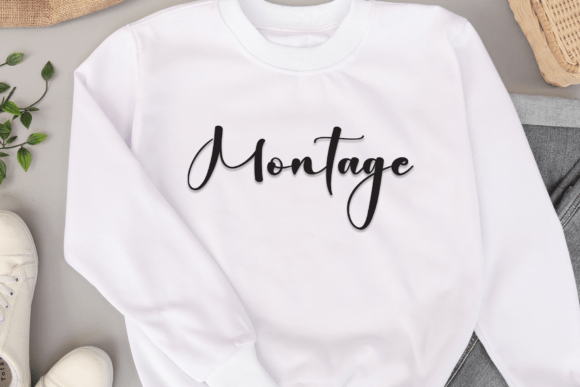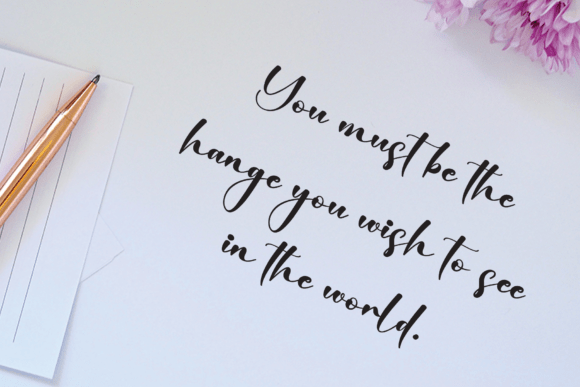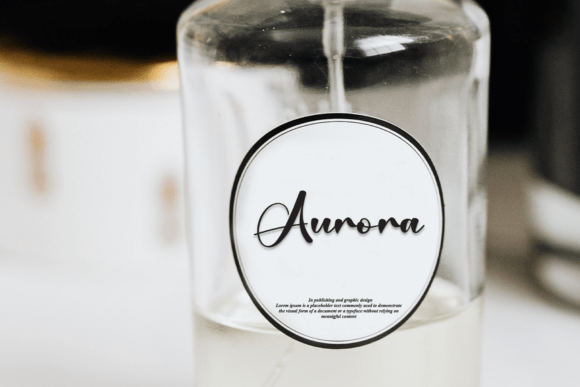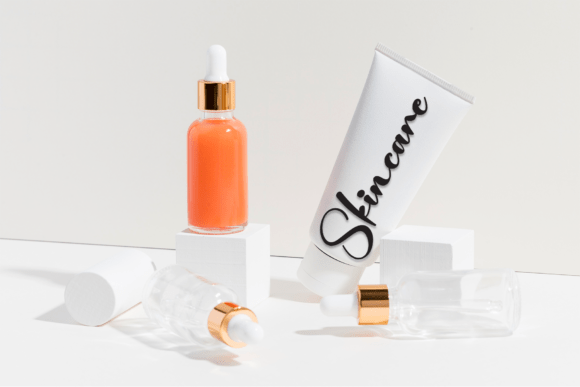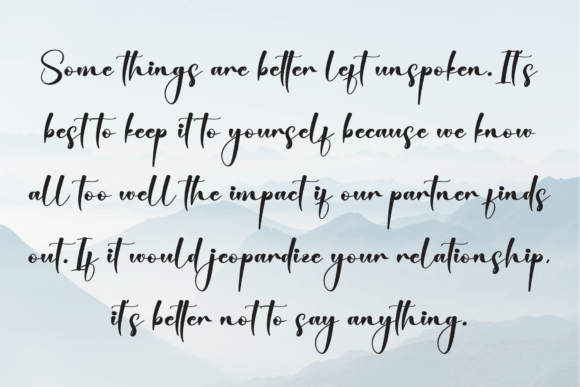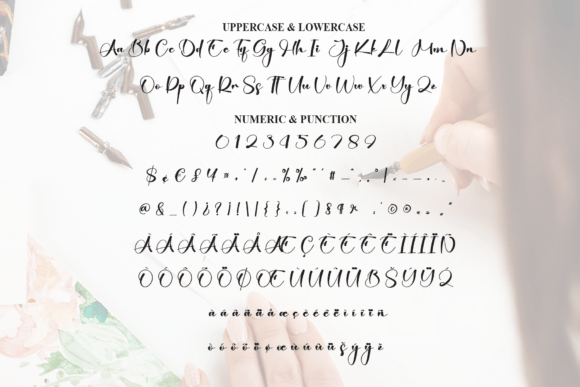
Give Your Designs a Touch of Elegance with the Bianca Signature Font
Have you ever found yourself pouring your heart and soul into a design project, only to feel like something’s missing? Maybe you’ve tried every combination of colors, textures, and typography, but still can’t quite capture the essence of your vision? For designers like you, the Bianca Signature Font is here to save the day.
This stunning modern handwritten font seamlessly balances casual charm with professional sophistication, making it the perfect choice for a wide range of projects. From luxury wedding stationery to boutique branding, the Bianca Signature Font adds a touch of elegance and authenticity to any design. Its natural, rhythmic flow and elegant sweeping strokes evoke the feeling of a handwritten signature, giving your designs a unique and high-end aesthetic that’s sure to impress.
Bianca Signature Font Key Features
- Font Styles: Bianca Signature Font includes 6 unique font styles: Regular, Bold, Italic, Bold Italic, Script, and Swash.
- Character Count: The font includes 1280 characters, including uppercase and lowercase letters, numbers, punctuation, and special characters.
- Unique Characteristics: Features elegant, cursive script and swash styles with intricate details and flourishes, making it perfect for signature designs, invitations, and other formal events.
Bianca Signature Font Review
Overall, I’m really enjoying working with the Bianca Signature Font. It’s a beautiful, elegant script font that’s perfect for adding a touch of sophistication to any design project. ✨ Here are some of the things that I love about it:
- It’s incredibly versatile – I’ve used it for everything from wedding invitations to branding materials, and it always looks great.
- The font is highly customizable, with a wide range of OpenType features that allow me to fine-tune the look and feel of the text.
That being said, there are a few limitations to be aware of:
- As a script font, Bianca Signature can be a bit tricky to read at smaller font sizes. I’ve found that it’s best to use it at a minimum of 18 points to get the best results. ⚠️
- The font doesn’t come with a lot of pre-built ligatures, which can make it a bit more time-consuming to set up complex text layouts.
Overall, I’m really impressed with the Bianca Signature Font. It’s a beautiful, high-quality font that’s perfect for any designer looking to add a touch of elegance to their work. With a little bit of finesse and attention to detail, you can create some truly stunning designs with this font.
Bianca Signature Font Practical Application Guide
Use the Bianca Signature Font to add a touch of elegance and sophistication to your designs.
1. Logos and branding materials.
2. Wedding invitations and stationery.
3. Luxury product packaging and labels.
4. High-end marketing materials and advertising.